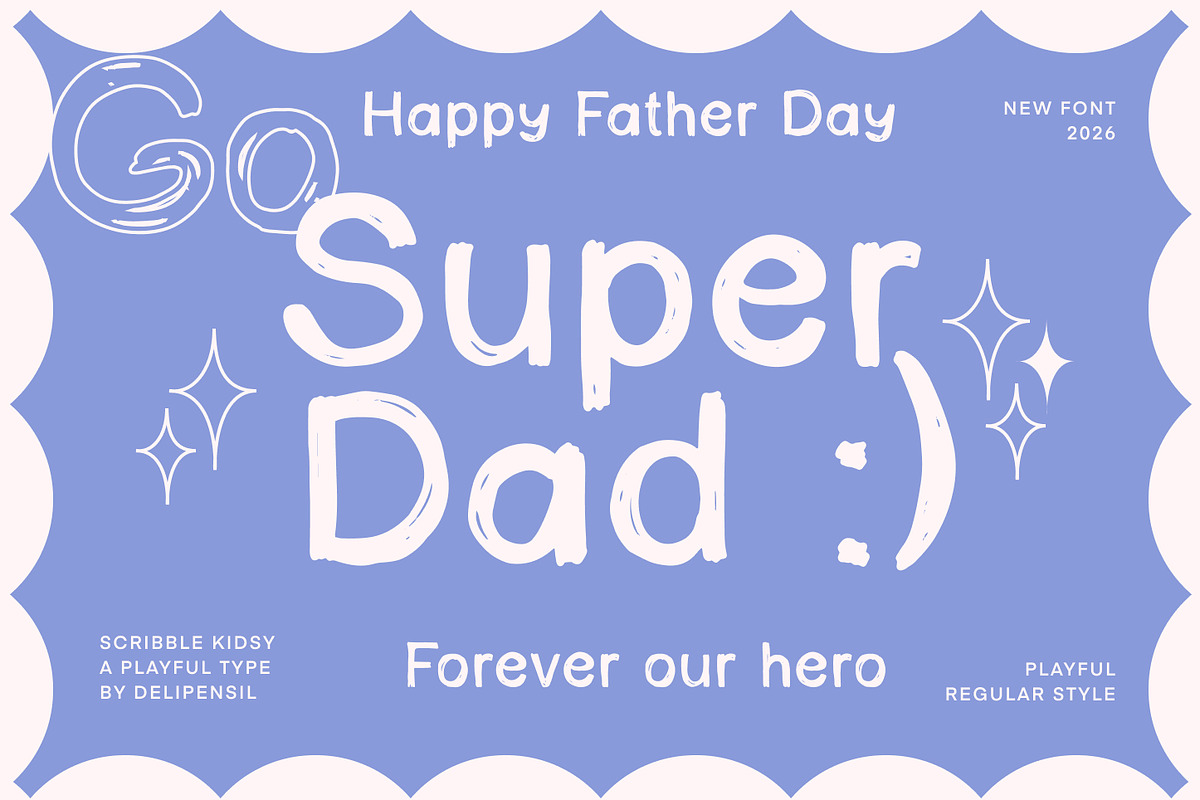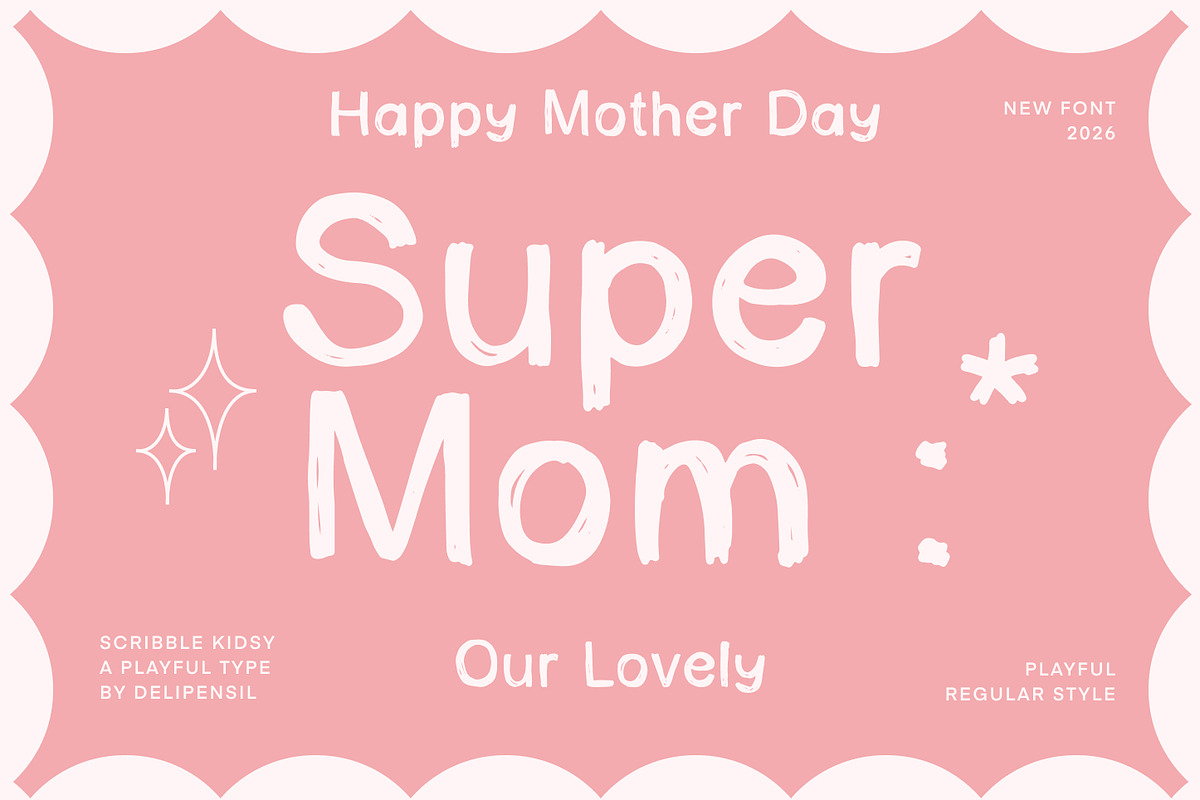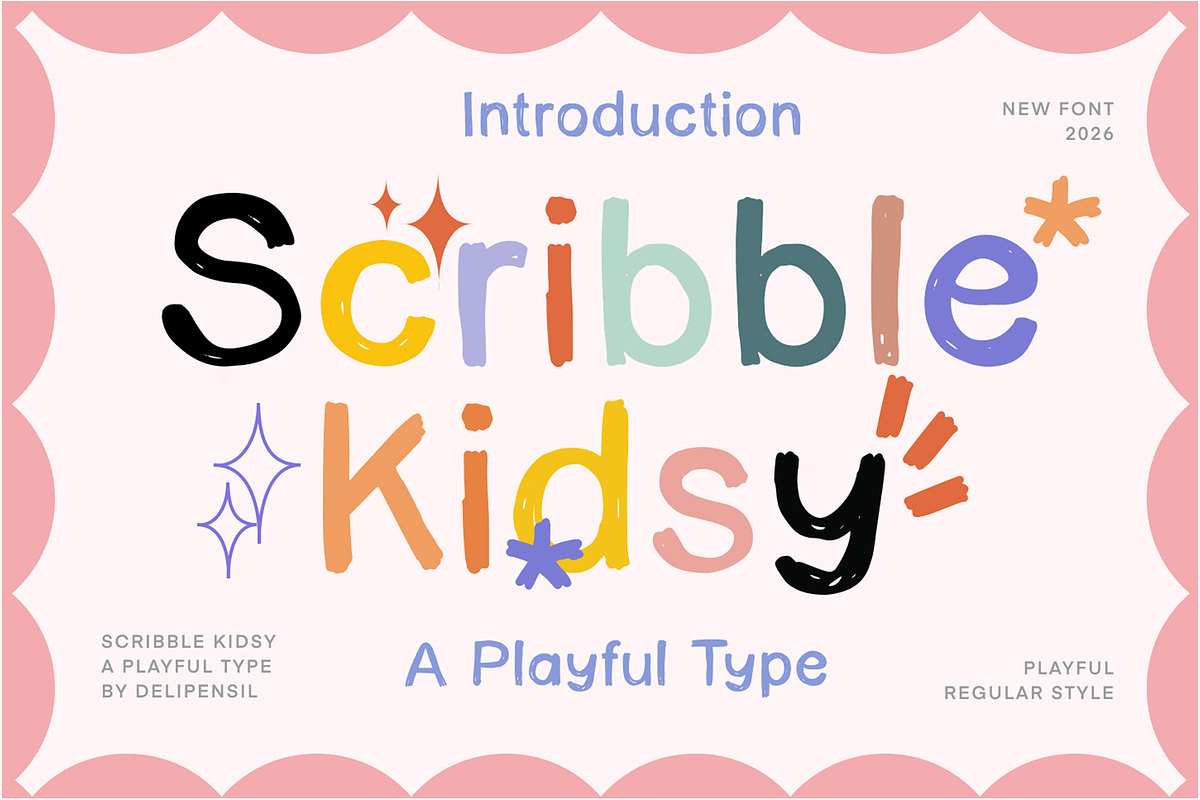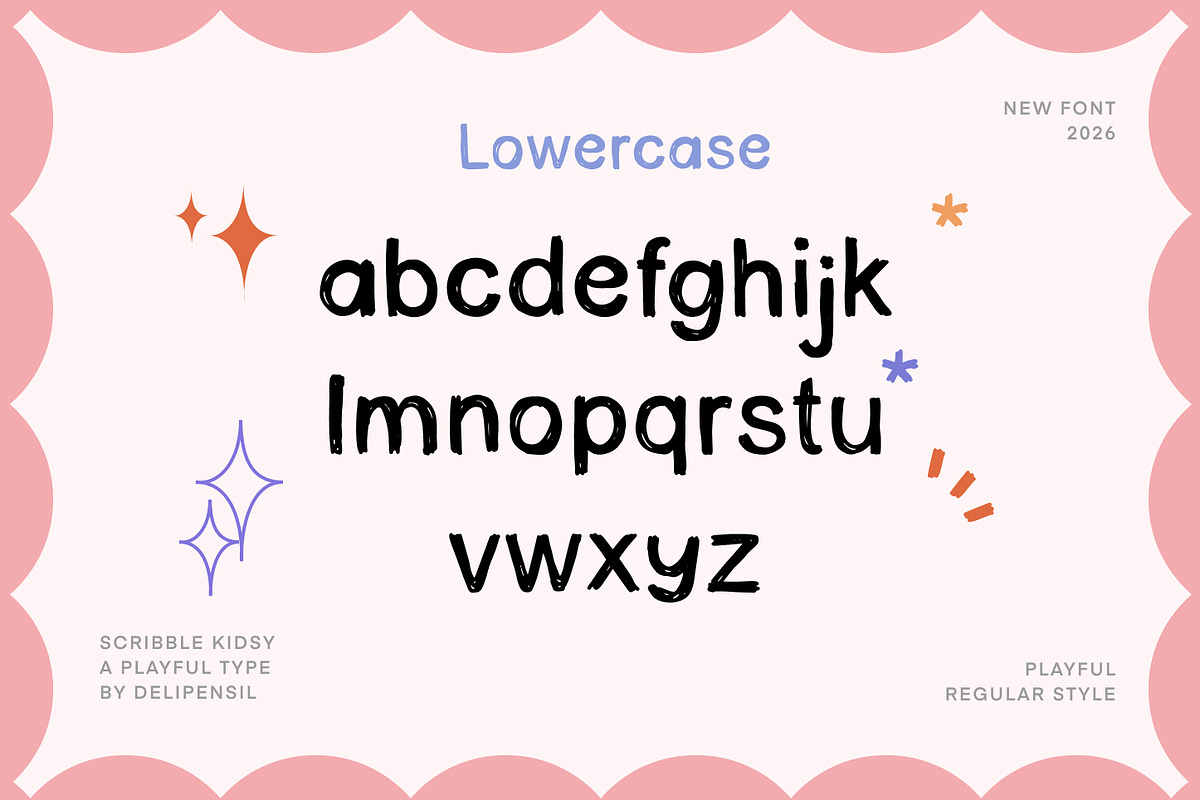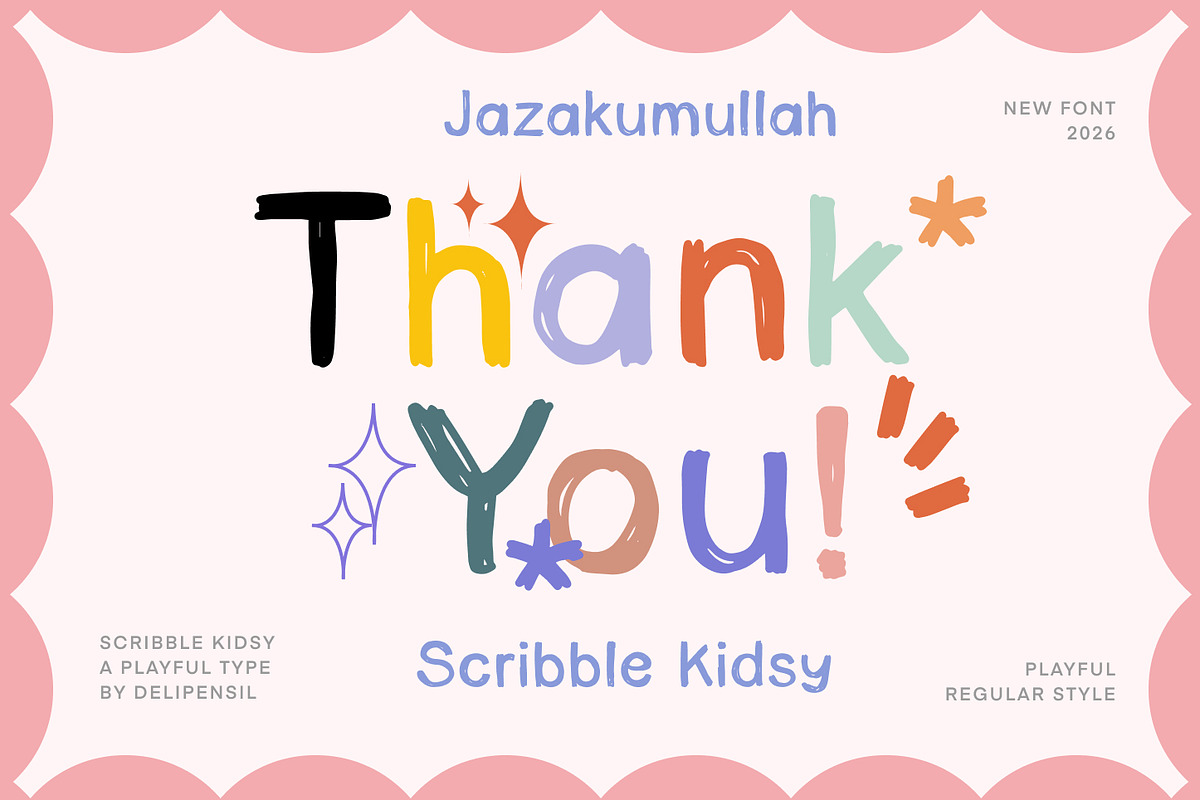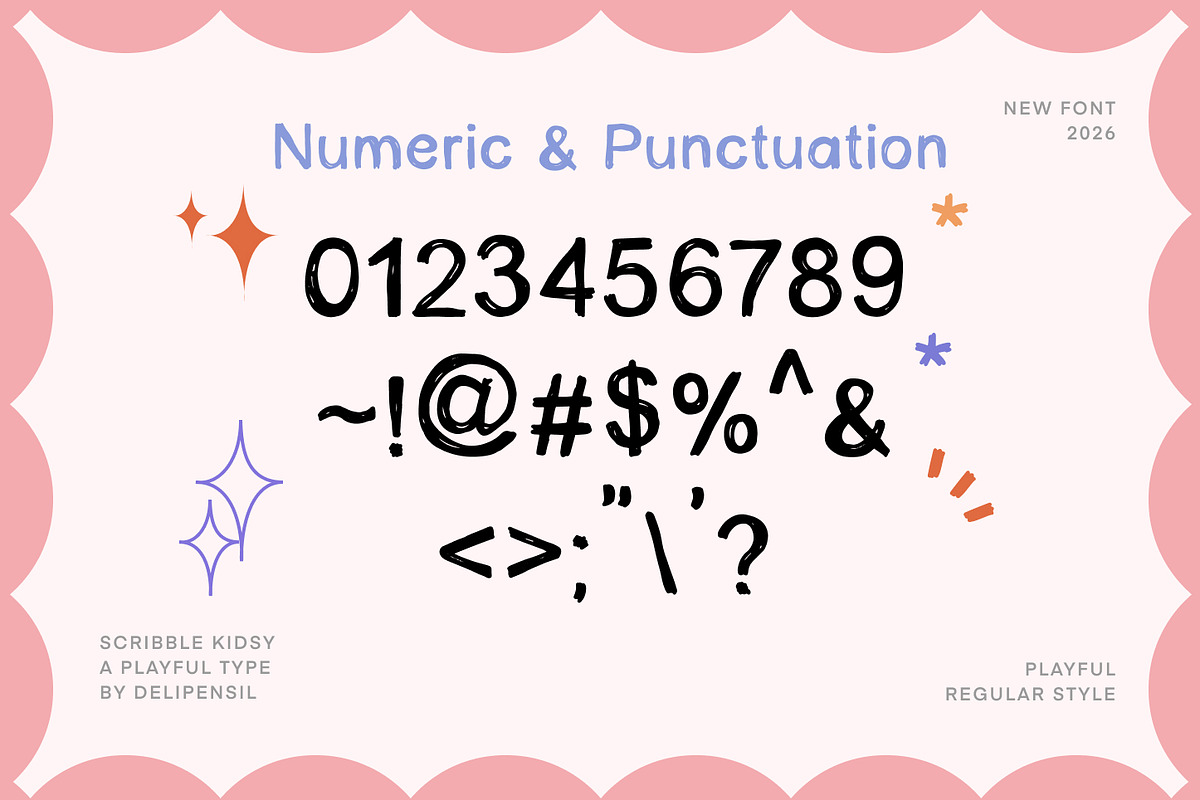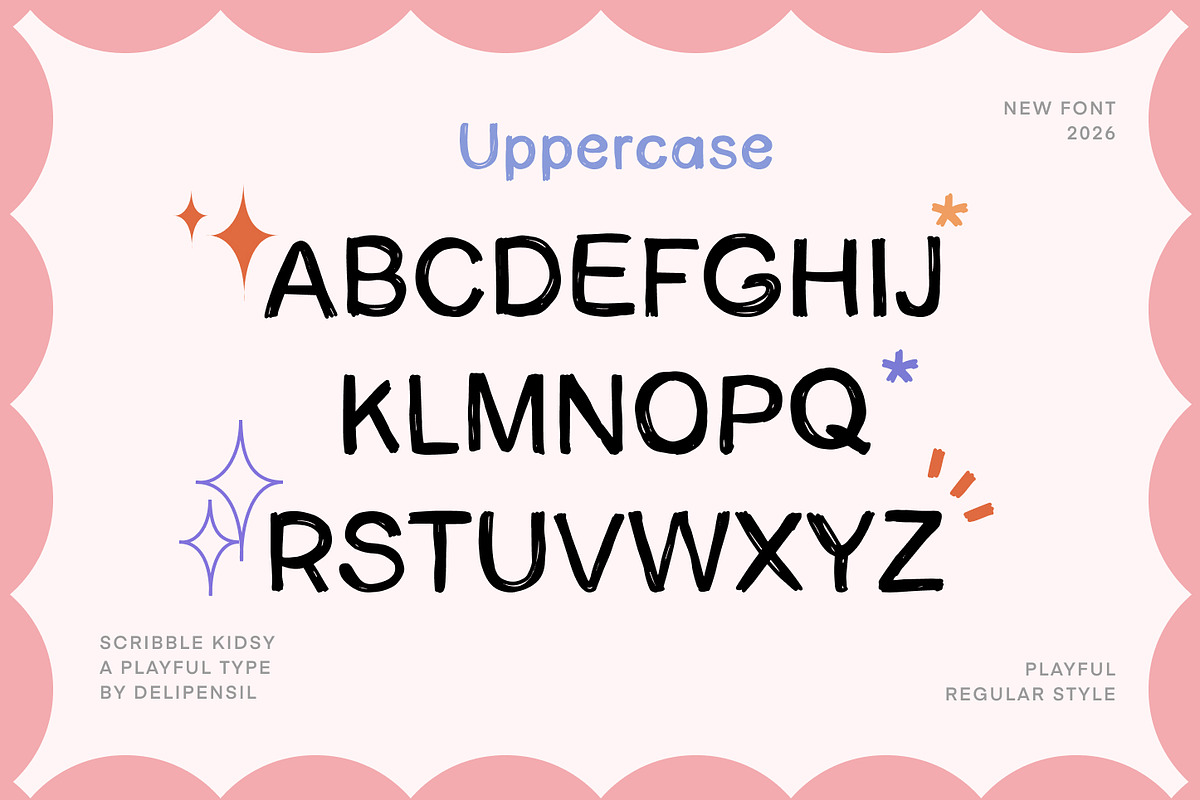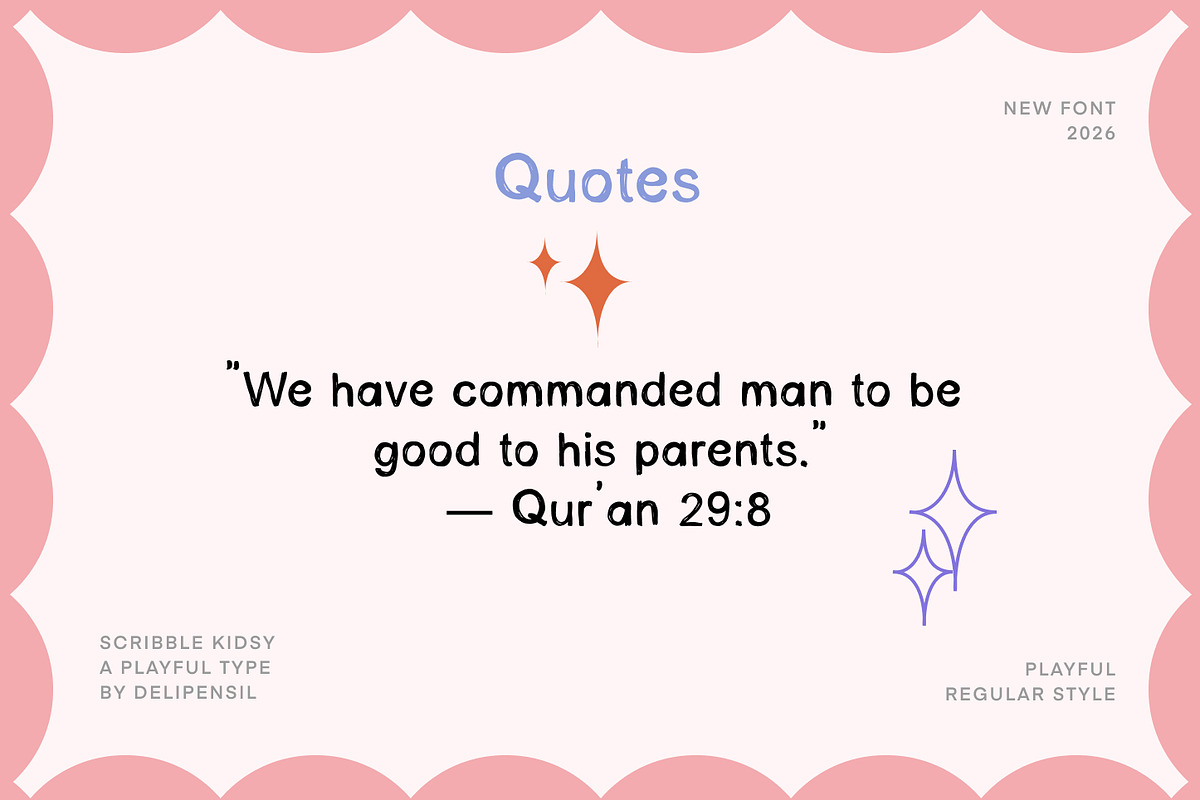
Scribble Kidsy - Playful Handwritten
Bismillah Introduction Scribble Kidsy is a playful handwritten font inspired by children’s doodles, school notebooks, and cheerful creativity. With its fun, messy, and authentic scribble style, this font brings a warm and youthful personality to any design project.
Kids-themed designs
Posters & invitations
Branding
Stickers & crafts
Cute packaging
Educational content